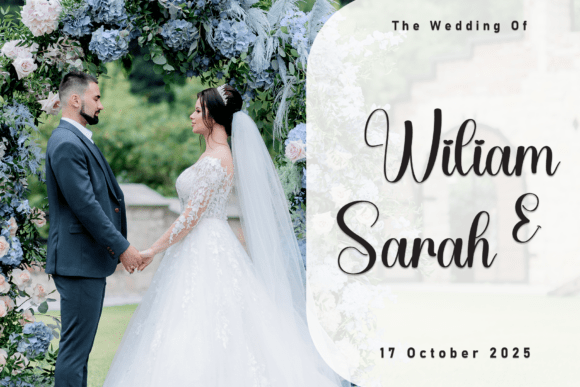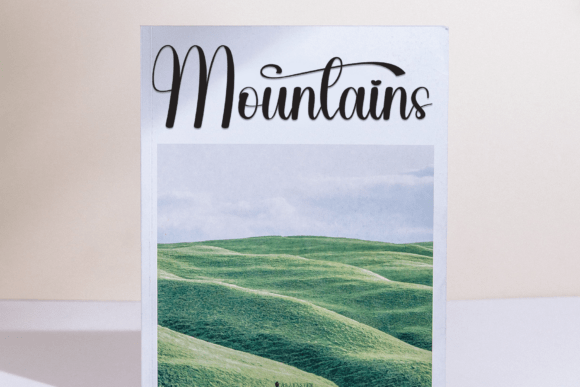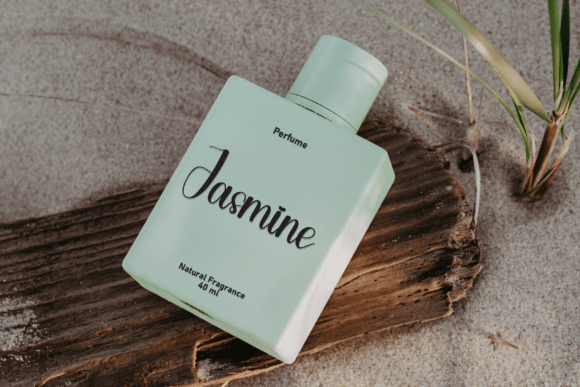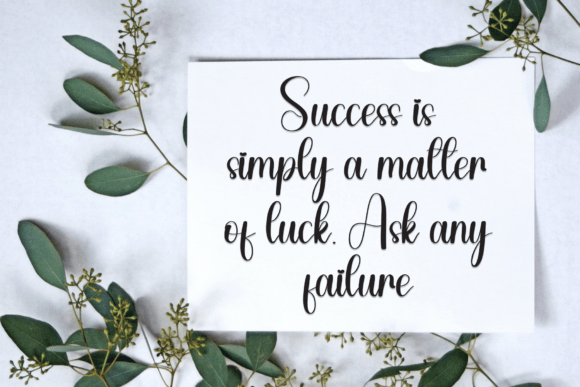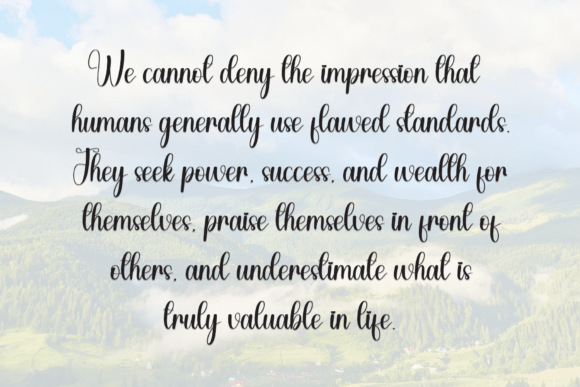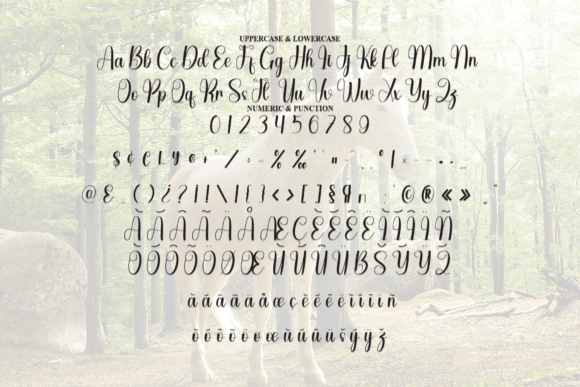
Discover the Magic of Enchanting Font: Elevate Your Designs with Elegance and Flair
Are you looking for a font that can add a touch of sophistication and artistic flair to your designs? Look no further than the Enchanting Font. This stylish script font is designed to capture the essence of hand-painted calligraphy with a modern twist, making it perfect for designers and crafters who want to elevate their work.
The Characteristics of Enchanting Font
Enchanting Font is a true masterpiece, boasting fluid brush strokes, dynamic curves, and expressive letterforms that exude contemporary elegance. The font’s natural flow and vibrant character make it ideal for a wide range of design applications, from logos and invitations to packaging and social media graphics.
One of the standout features of Enchanting Font is its ability to convey a sense of artistic flair. The font’s fluid brush strokes and dynamic curves give it a hand-painted feel that’s both creative and sophisticated. Whether you’re designing a logo, invitation, or social media graphic, Enchanting Font is sure to make your work stand out.
The Benefits of Using Enchanting Font
So why choose Enchanting Font for your design projects? Here are just a few benefits of using this versatile and stylish font:
- Visual Impact: Enchanting Font delivers both visual impact and versatility, making it perfect for designers who want to create stunning designs that capture attention.
- Creative Freedom: With its natural flow and expressive letterforms, Enchanting Font gives you the creative freedom to experiment with different design styles and ideas.
- Sophistication: Enchanting Font adds a touch of sophistication and elegance to any design, making it perfect for high-end brands, luxury products, and special occasions.
- Versatility: Whether you’re designing a logo, invitation, or social media graphic, Enchanting Font is versatile enough to be used across a wide range of design applications.
Design Applications for Enchanting Font
So what can you create with Enchanting Font? The possibilities are endless, but here are a few design applications to get you started:
- Logos: Create a stunning logo that captures the essence of your brand with Enchanting Font.
- Invitations: Design beautiful invitations for special occasions, such as weddings, birthdays, and graduations.
- Packaging: Add a touch of elegance to your product packaging with Enchanting Font.
- Social Media Graphics: Create stunning social media graphics that showcase your brand’s personality and style.
Tips for Using Enchanting Font
To get the most out of Enchanting Font, here are a few tips to keep in mind:
- Experiment with Different Sizes: Enchanting Font looks great in a variety of sizes, so don’t be afraid to experiment with different font sizes to find the one that works best for your design.
- Play with Color: Enchanting Font comes in a range of colors, so try experimenting with different colors to find the one that works best for your design.
- Mix and Match: Don’t be afraid to mix and match Enchanting Font with other fonts to create a unique and eye-catching design.
In conclusion, Enchanting Font is a stylish script font that exudes artistic flair and contemporary elegance. With its fluid brush strokes, dynamic curves, and expressive letterforms, it’s perfect for designers and crafters who want to elevate their work. Whether you’re designing a logo, invitation, or social media graphic, Enchanting Font delivers both visual impact and versatility. So why wait? Discover the magic of Enchanting Font today and take your designs to the next level.